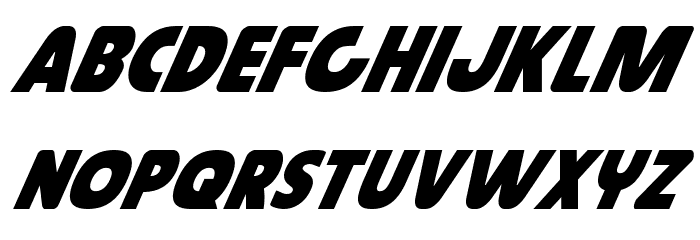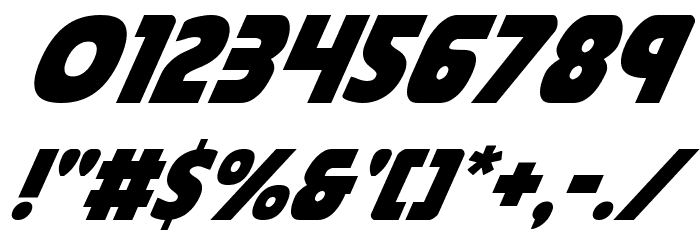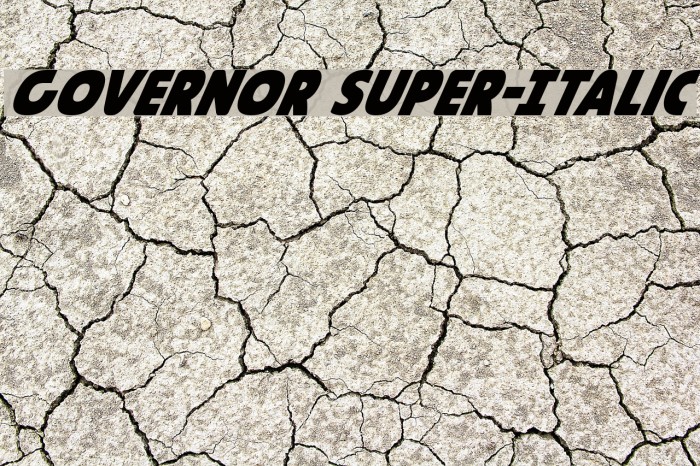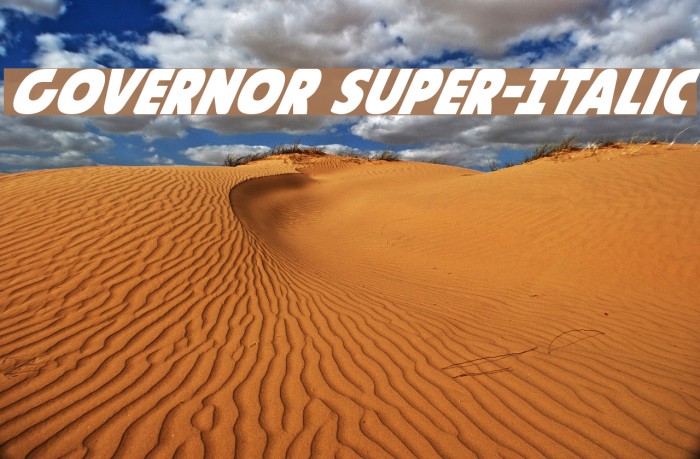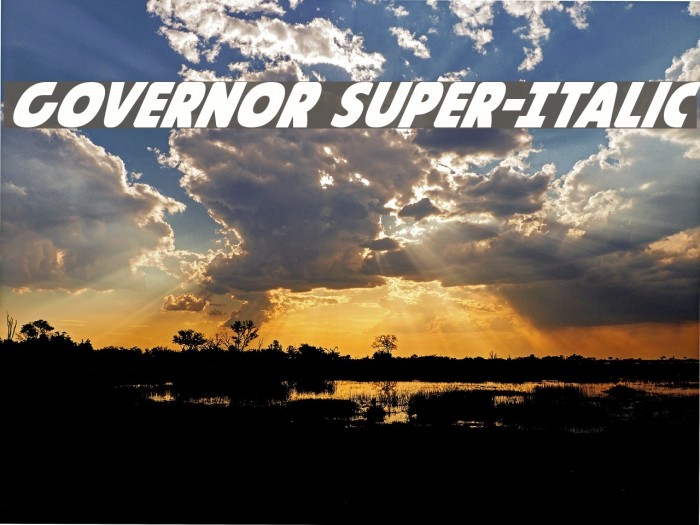
Governor Super-Italic Font
This font features a bold and dynamic style with a strong italic slant, giving it a sense of movement and energy. The characters are thick and robust, with a consistent stroke width that enhances readability while maintaining a distinctive appearance. The uppercase letters are particularly striking, with a slight forward tilt that adds to the font's overall dynamism. The numbers and special characters are equally bold, ensuring uniformity across all elements. This font's design is both modern and impactful, making it suitable for attention-grabbing headlines and titles.
A bold, italicized font with a dynamic and modern style.
- Proposed Projects: Ideal for branding, advertising, posters, and any project requiring a strong visual impact.